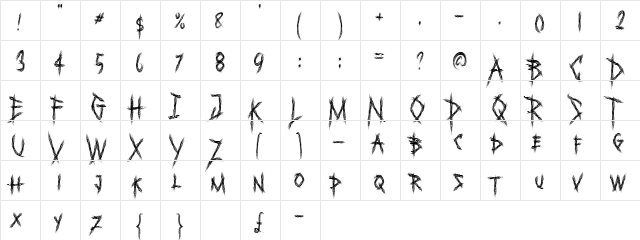
Darkside Regular Font Preview
Darkside Regular
Darkside Regular Font Details
| Designer | Muhammad Sirojuddin - Jogjakarta |
Design Context for Darkside Typeface
Darkside is a composed and adaptable typeface that performs quietly and consistently across a wide range of design contexts.